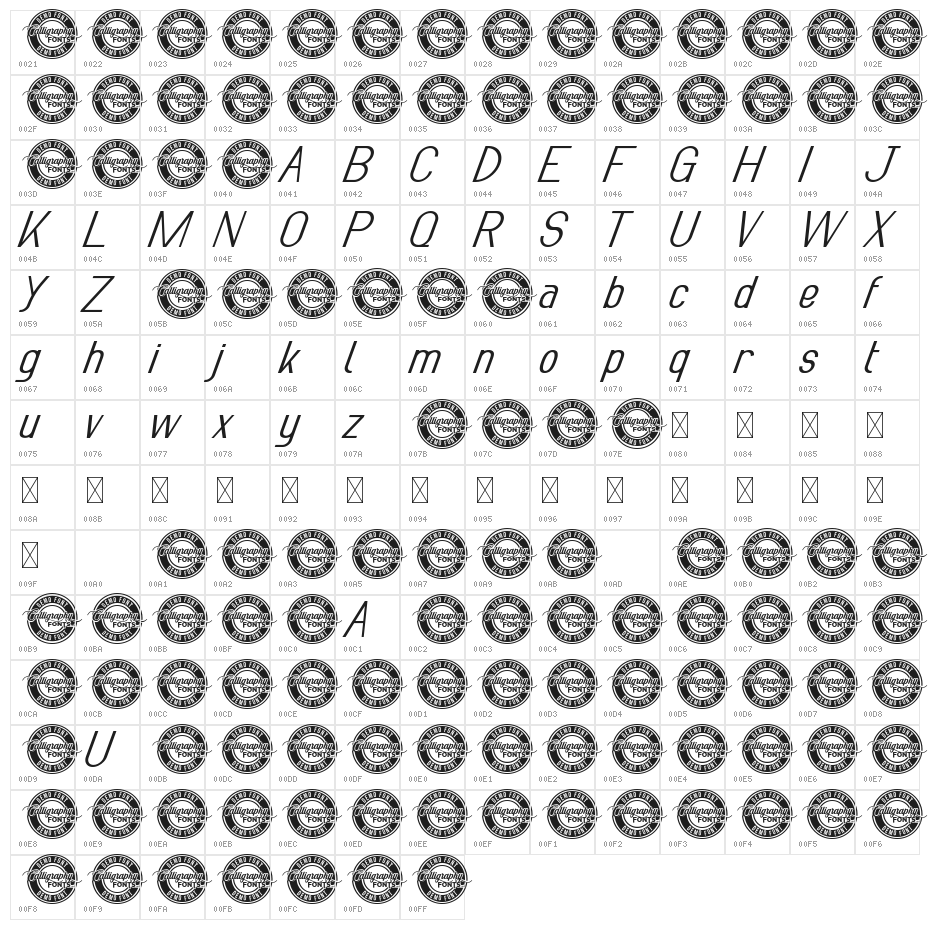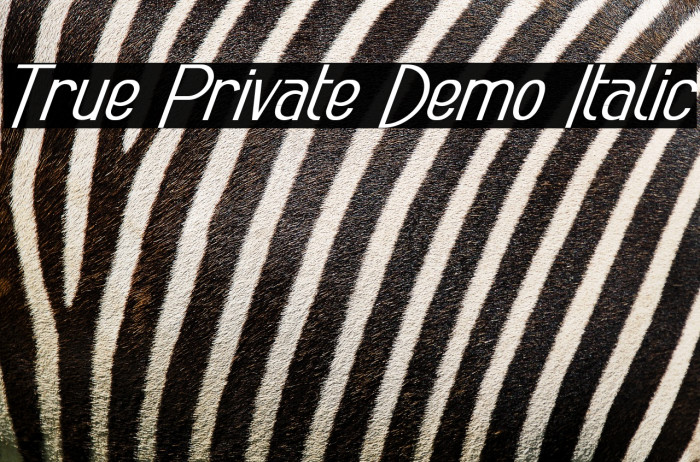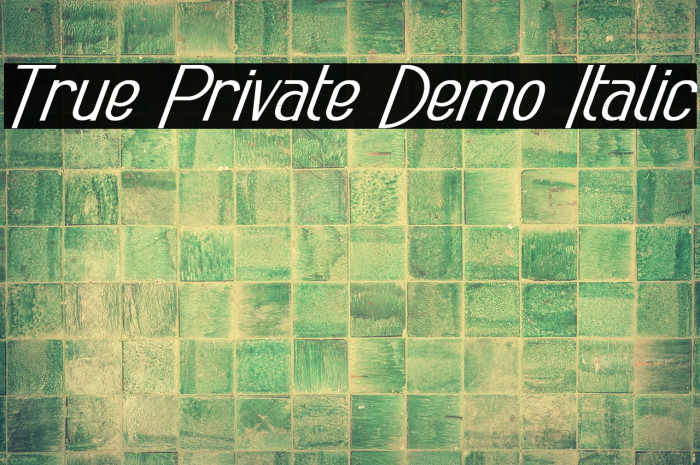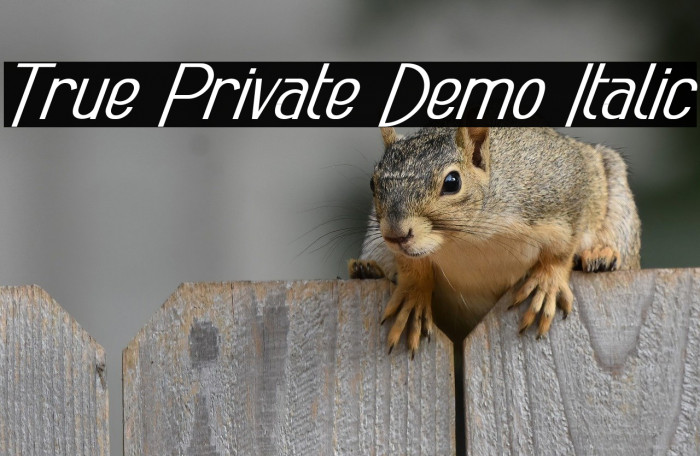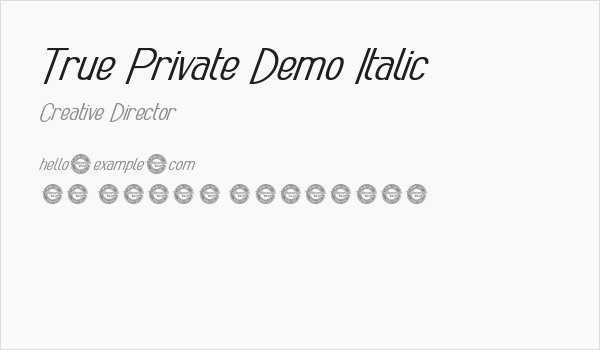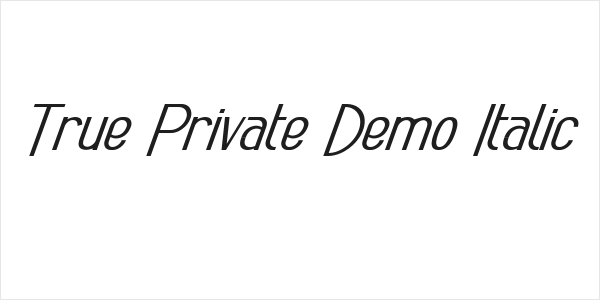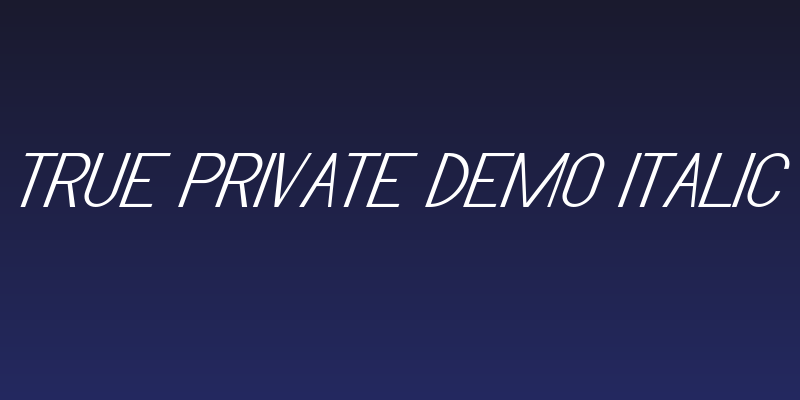
True Private Demo Italic Font
True Private Demo Italic Description
This font features a sleek, italicized style with a modern and professional appearance. The characters are slightly condensed, giving it a streamlined look. The strokes are consistent in thickness, providing a medium contrast that enhances readability while maintaining an elegant aesthetic. The uppercase letters are tall and narrow, while the lowercase letters have a smooth, flowing quality that complements the italic slant. This font is versatile, suitable for various applications where a touch of sophistication is desired.
| Proposed Projects | Ideal for branding, advertising, and editorial design projects where a modern and elegant touch is needed. |